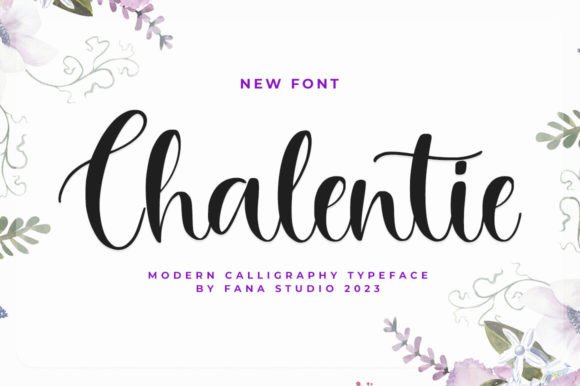
Introducing the Chalentie Font: Elevate Your Designs with Elegant Typography
Are you a designer or crafter looking for a unique and elegant font to elevate your projects? Look no further than the Chalentie Font. This stunning script font offers gorgeous typographic perfection, making it ideal for a wide range of applications, from logos and branding to invitations, stationery, and more.
What is the Chalentie Font?
The Chalentie Font is a beautifully crafted script font that exudes elegance and sophistication. Its flowing lines and intricate details make it perfect for adding a touch of luxury to any design. Whether you’re working on a logo, invitation, or social media post, this font is sure to make your project stand out.
The Chalentie Script offers gorgeous typographic perfection for many different projects, including:
- Logos & Branding: Create a lasting impression with a custom logo that showcases your brand’s personality and style.
- Invitations: Make your invitations truly special with a font that adds a touch of elegance and sophistication.
- Stationery: Elevate your stationery designs with a font that exudes professionalism and style.
- Wedding Designs: Make your wedding designs truly unforgettable with a font that adds a touch of romance and whimsy.
- Social Media Posts: Stand out on social media with eye-catching graphics that feature the Chalentie Font.
- Advertisements: Grab the attention of your target audience with ads that feature a font that’s both elegant and eye-catching.
- Product Packaging: Make your product packaging truly special with a font that adds a touch of luxury and sophistication.
- Product Designs: Create stunning product designs that showcase your brand’s personality and style.
- Labels: Add a touch of elegance to your labels with a font that’s both stylish and easy to read.
- Photography: Use the Chalentie Font to add a touch of sophistication to your watermarks and photo designs.
- Special Events: Make your special events truly unforgettable with a font that adds a touch of elegance and whimsy.
Why Choose the Chalentie Font?
So why choose the Chalentie Font for your next project? Here are just a few reasons:
- Unique and Elegant: The Chalentie Font is a one-of-a-kind script font that adds a touch of elegance and sophistication to any design.
- Versatile: This font is perfect for a wide range of projects, from logos and branding to invitations and social media posts.
- High-Quality: This font is crafted with high-quality typography in mind, ensuring that your designs look professional and polished.
Tips for Using the Chalentie Font
Here are a few tips for getting the most out of the Chalentie Font:
- Pair it with Other Fonts: Experiment with pairing the Chalentie Font with other fonts to create a unique and eye-catching design.
- Use it for Headlines: The Chalentie Font is perfect for headlines and titles, adding a touch of elegance and sophistication to any design.
- Add a Personal Touch: Use the Chalentie Font to add a personal touch to your designs, making them truly special and unique.
In conclusion, the Chalentie Font is a stunning script font that offers gorgeous typographic perfection for a wide range of projects. Its elegant and sophisticated design makes it perfect for designers and crafters looking to add a touch of luxury to their work. With its versatility, ease of use, and high-quality typography, the Chalentie Font is a must-have for any designer or crafter looking to elevate their designs.